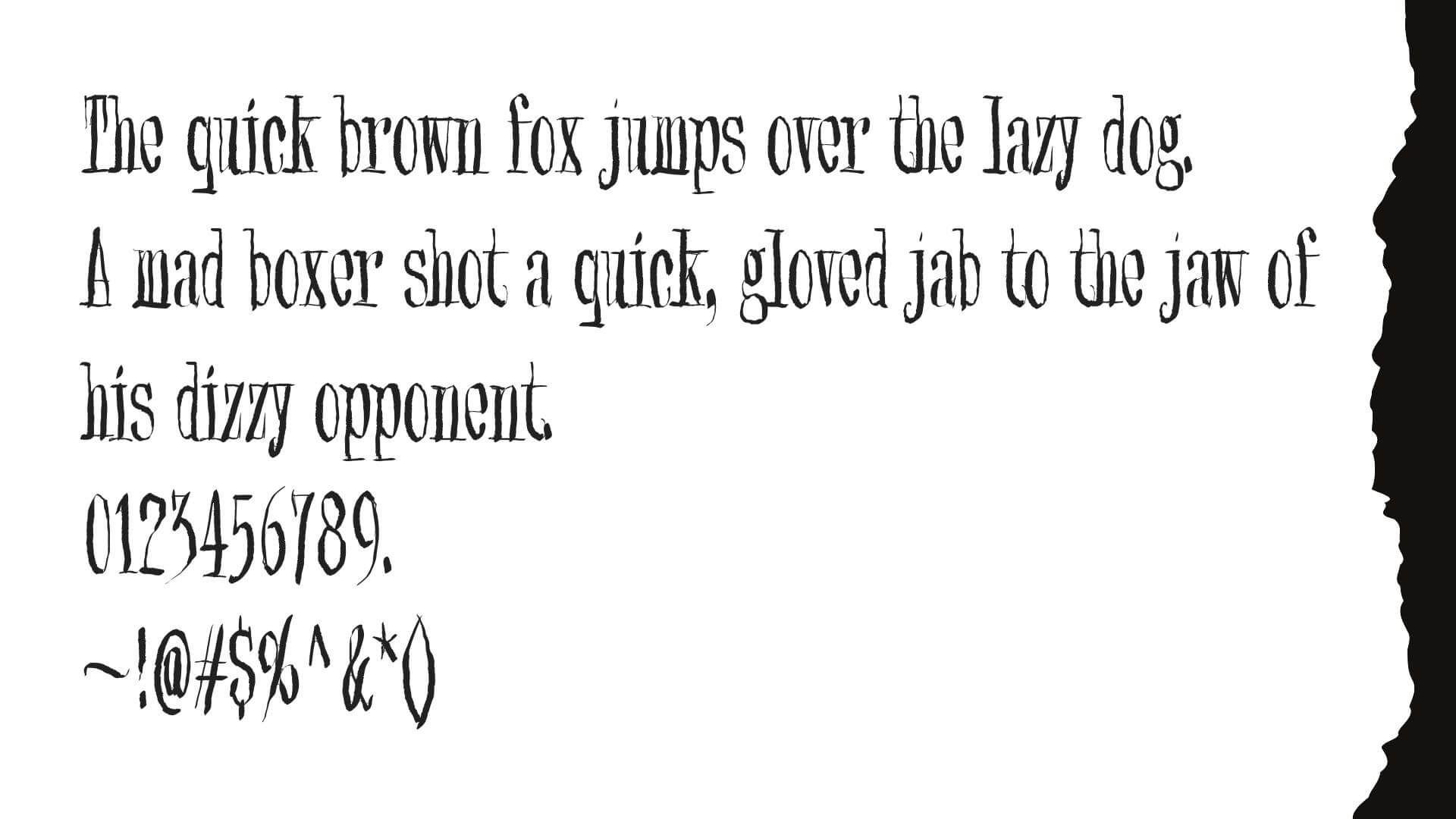
Blank Synonym Font is a condensed typeface that has elegant and worth appreciating features. Since the font came into emergence, it has been given huge popularity because of being a quality-based font.
It has cursive strokes and is quite slender. Printing is the main platform where it can easily be used with blackbeard font because it makes the text readable.
| Name | Blank Synonym Font |
| Style | Fancy |
| Designer | Junkohanhero |
Font Family (Include 1 typeface)
- Regular